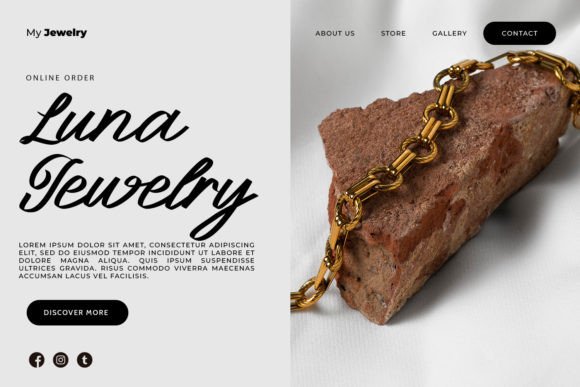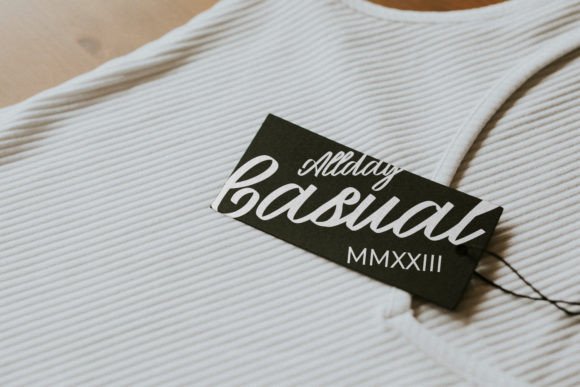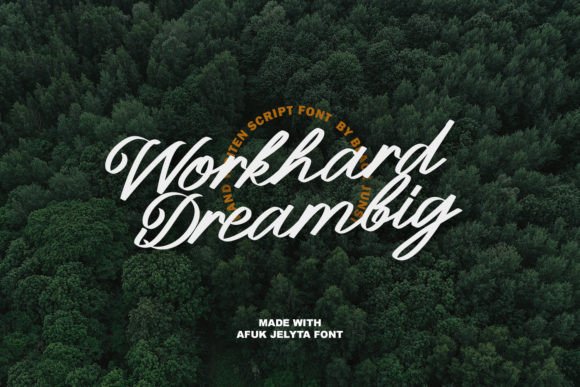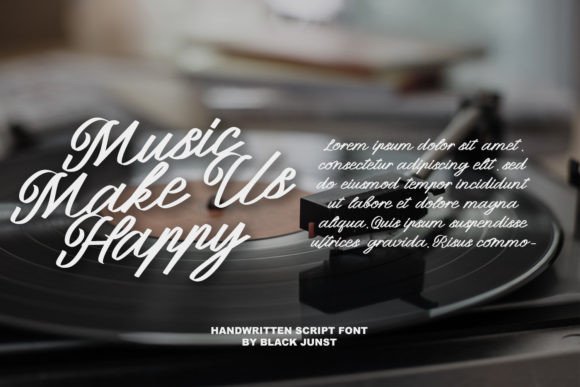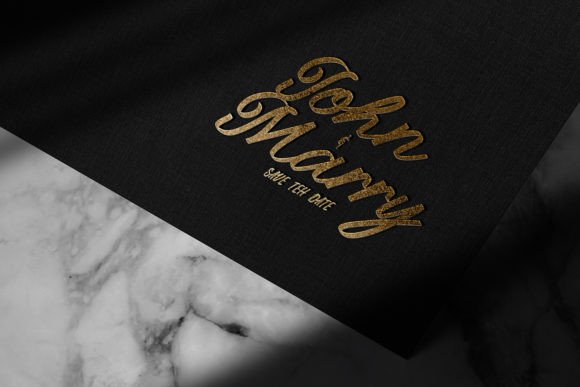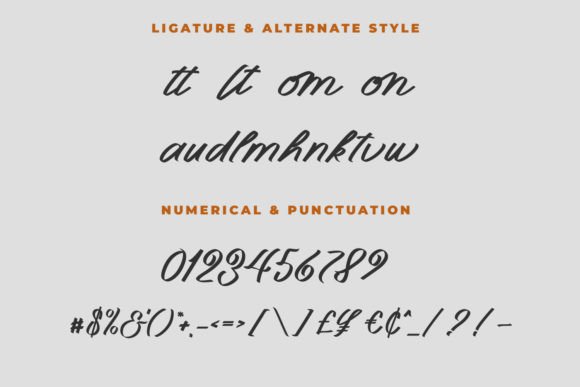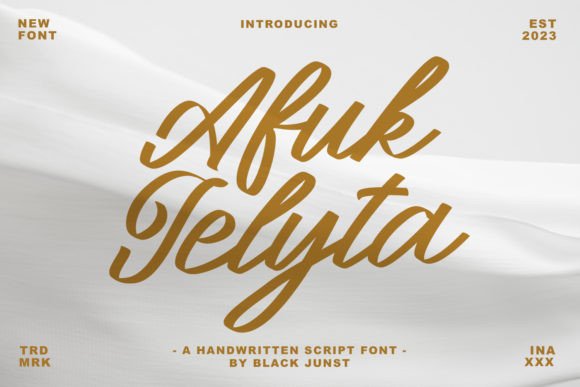
Discover the Elegance of Afuk Jelyta Font: Elevate Your Designs with a Timeless Touch
Are you on the hunt for a font that exudes elegance and sophistication? Look no further than the Afuk Jelyta Font. This stunning, flowing handwritten font is sure to capture your heart with its incredibly distinct and timeless style. Perfect for designers and crafters alike, Afuk Jelyta is the ideal choice for creating spectacular designs that leave a lasting impression.
The Characteristics of Afuk Jelyta Font
Afuk Jelyta Font is described by its elegant touch, which sets it apart from other fonts. Its flowing, handwritten style is both refined and sophisticated, making it perfect for a wide range of projects. Whether you’re working on a logo, branding materials, or digital content, Afuk Jelyta is sure to add a touch of class and sophistication.
What Makes Afuk Jelyta Font So Special?
So, what makes Afuk Jelyta Font so special? Here are just a few reasons why designers and crafters are falling in love with this beautiful font:
- Elegant and Refined: Afuk Jelyta Font boasts an elegant and refined style that is perfect for creating sophisticated designs.
- Timeless Appeal: Unlike trendy fonts that quickly go out of style, Afuk Jelyta has a timeless appeal that ensures your designs will remain stylish for years to come.
- Versatile: Afuk Jelyta Font is incredibly versatile, making it suitable for a wide range of projects, from logos and branding materials to digital content and more.
- Distinctive: With its unique, flowing style, Afuk Jelyta Font is sure to make your designs stand out from the crowd.
How to Use Afuk Jelyta Font in Your Designs
Using Afuk Jelyta Font in your designs is easy. Here are a few tips to get you started:
- Pair it with Other Fonts: Afuk Jelyta Font pairs beautifully with other fonts, making it easy to create stunning contrast and visual interest.
- Experiment with Colors: Afuk Jelyta Font looks amazing in a range of colors, from rich jewel tones to soft pastels.
- Use it for Headings and Titles: Afuk Jelyta Font is perfect for headings and titles, adding a touch of elegance and sophistication to your designs.
- Get Creative: Don’t be afraid to experiment with Afuk Jelyta Font and try new things. Its versatility makes it perfect for a wide range of design applications.
Why Designers and Crafters Love Afuk Jelyta Font
Designers and crafters love Afuk Jelyta Font for many reasons. Here are just a few:
- Easy to Read: Afuk Jelyta Font is incredibly easy to read, making it perfect for digital content and print materials.
- Highly Versatile: Afuk Jelyta Font can be used in a wide range of design applications, from logos and branding materials to digital content and more.
- Unique Style: Afuk Jelyta Font boasts a unique, flowing style that sets it apart from other fonts.
- Elegant and Sophisticated: Afuk Jelyta Font adds a touch of elegance and sophistication to any design.
| Font Name | Afuk Jelyta Font |
| Author | Black Junst |
In conclusion, Afuk Jelyta Font is a stunning, flowing handwritten font that is perfect for designers and crafters alike. Its elegant touch, timeless appeal, and versatility make it an ideal choice for creating spectacular designs. Whether you’re working on a logo, branding materials, or digital content, Afuk Jelyta Font is sure to elevate your designs to the next level. So why wait? Fall in love with Afuk Jelyta Font today and discover the power of elegant typography!